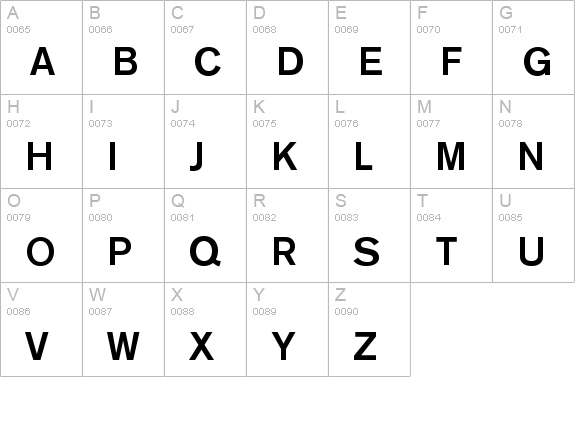
Berthold Akzidenz Grotesk BE Medium Font Details
Berthold Akzidenz Grotesk BE Medium is a balanced, medium-weight variant in the Berthold typeface family \xE2\x80\x94 well suited to sub-headlines, navigation, and balanced editorial work.
Berthold Akzidenz Grotesk BE Medium is a classic and timeless font that exudes a sense of modernity and sophistication. With its clean lines and balanced proportions, this font is perfect for a wide range of design projects, from branding to editorial design. The medium weight of the font strikes the perfect balance between boldness and readability, making it versatile and easy to use. What sets Berthold Akzidenz Grotesk BE Medium apart is that it is available for free download at FontsMarket.com. This means that designers and creatives can easily access and use this high-quality font in their projects without any cost. Whether you're working on a website, poster, or logo design, Berthold Akzidenz Grotesk BE Medium is a reliable choice that will elevate your work with its sleek and professional aesthetic.